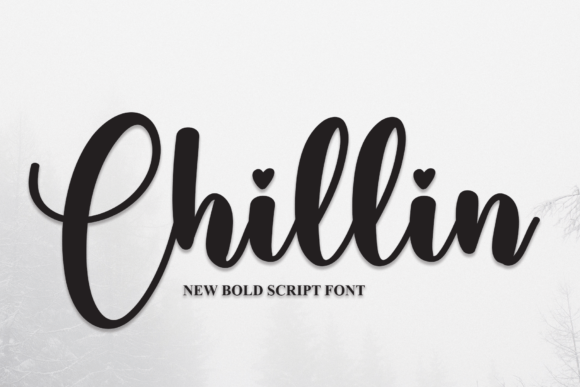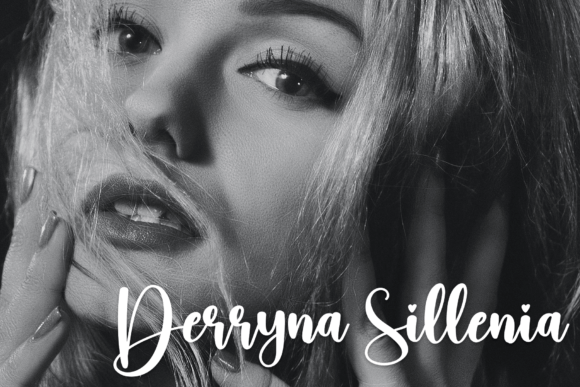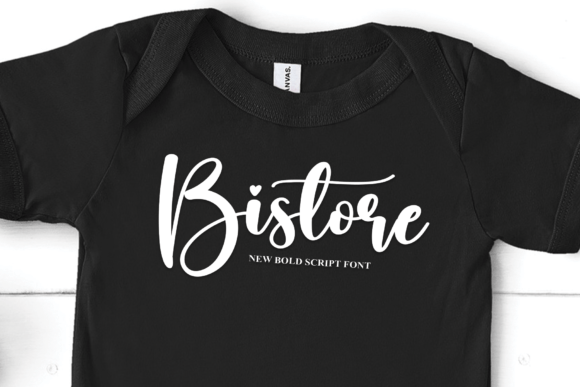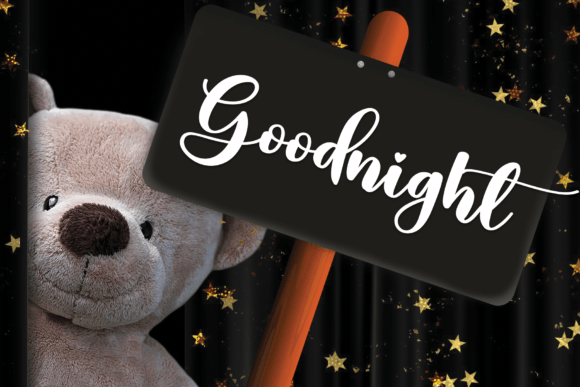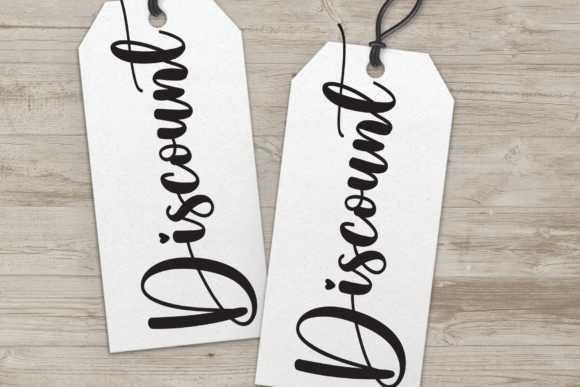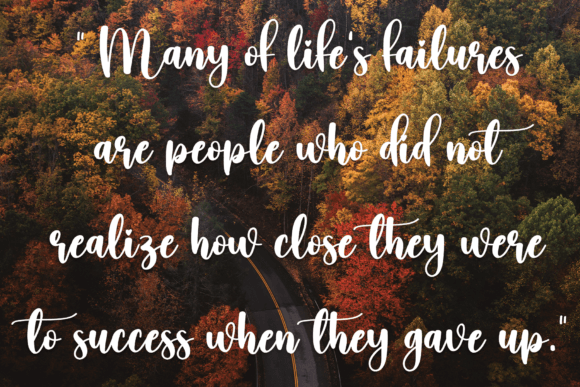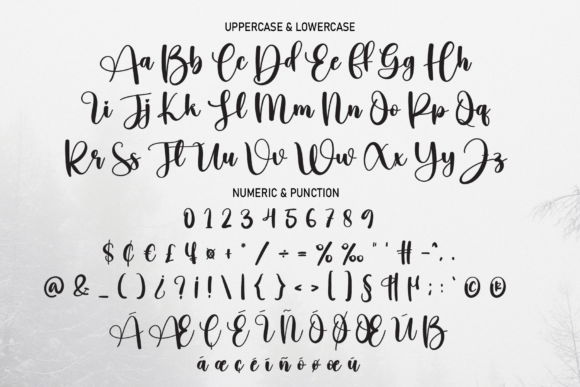
The Perfect Handwritten Touch
Have you ever been scrolling through social media, and suddenly, a beautiful, handwritten font catches your eye? It’s like a breath of fresh air, isn’t it? You can’t help but feel a sense of warmth and personality behind the design. For designers, finding that perfect handwritten font can be a game-changer.
Introducing Chillin Font, a lovely handwritten font designed to add a touch of personality to any project. Whether you’re creating wall displays, wedding invitations, or social media posts, Chillin Font is the perfect choice. Its versatility and charm make it a valuable asset for designers looking to add a handwritten touch to their work.
With Chillin Font, you can give your designs a unique and personal feel that sets them apart from the rest. Its beauty lies in its simplicity and elegance, making it a must-have for any designer looking to add a handwritten touch to their projects.
Key Features of Chillin Font
- Font Family: Chillin Font offers a unique, handwritten style with various font weights, from Light to Bold.
- Size: The font family includes a range of font sizes, from 8pt to 72pt, allowing for flexibility in various design applications.
- Resolution: Supports high-resolution printing and digital display, with a minimum recommended resolution of 300 DPI.
- Unique Characteristics: The Chillin Font features a distinctive, cursive style with a mix of rounded and pointed letterforms, making it ideal for creative and informal designs.
- Language Support: Supports a wide range of languages, including Latin, Cyrillic, and Greek alphabets, making it suitable for international designs and publications.
Chillin Font Review
Overall, I think the Chillin Font is a solid choice for casual and informal projects. It has a laid-back vibe that works well for social media graphics, blog posts, and other relaxed content. ✨ The font is easy to read, even at smaller sizes, and it’s a great option for anyone looking to add a bit of personality to their design.
One of the things I like most about the Chillin Font is its versatility. ✨ It works well for both headings and body text, and it’s a great choice for creating a consistent look and feel across multiple elements. The font also has a range of weights, from light to bold, which makes it easy to use in different contexts.
- ⚠️ The Chillin Font may not be the best choice for formal or professional projects. It’s a bit too casual for most corporate or academic applications.
- ⚠️ The font may not be as effective in smaller sizes, especially when used for body text. You may need to adjust the font size or use a larger size to ensure readability.
- ⚠️ The Chillin Font may not be suitable for projects that require a lot of technical or scientific content. The font’s casual style may not be effective for conveying complex information.
Overall, I think the Chillin Font is a great choice for designers who want to add a bit of personality to their projects. While it may have some limitations, it’s a solid option for casual and informal content. With a bit of creativity and experimentation, you can use the Chillin Font to create some really interesting and engaging designs.
Tips for Getting the Most Out of Chillin Font
For the best results, use the Chillin Font in bold or italic styles to add emphasis to your text.
Experiment with different font sizes to create visual hierarchy in your design.
Combine the Chillin Font with other fonts to create a unique and interesting typography style.
The Chillin Font is perfect for:
Casual blog posts and social media graphics.
Informal marketing materials and flyers.
Personalized gifts and invitations.
Alternatives to “Chillin Font” for Designers
Great Vibes Font is a modern, cursive script font ideal for creating a friendly and approachable atmosphere. It’s perfect for use in branding, advertising, and editorial content where a touch of elegance is desired.
Compared to Chillin Font, Great Vibes Font has a more refined and sophisticated feel, making it suitable for a wider range of applications.
Pacifico Font is a beautiful, handwritten font that conveys a sense of relaxation and tranquility. It’s ideal for use in travel, lifestyle, and wellness branding, as well as for creating invitations and event materials.